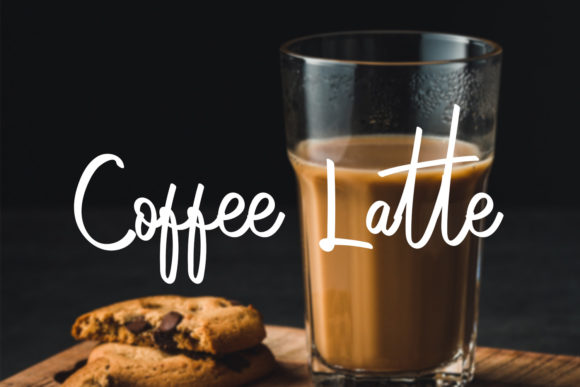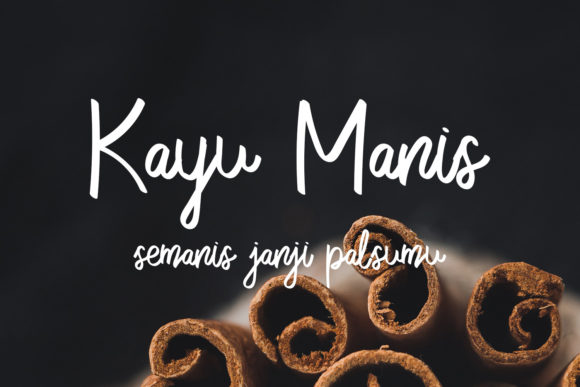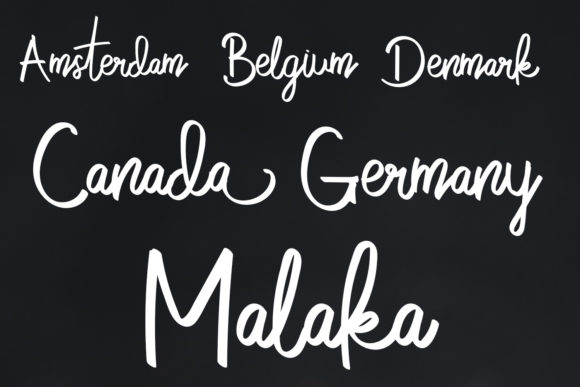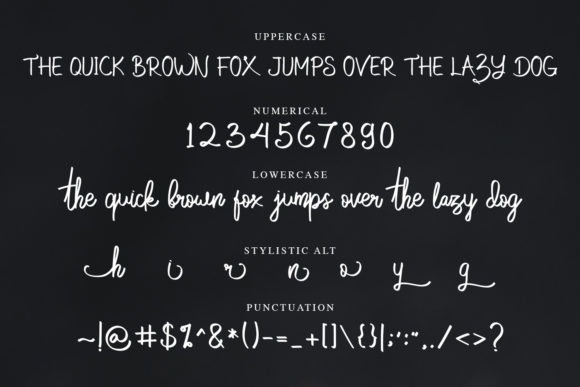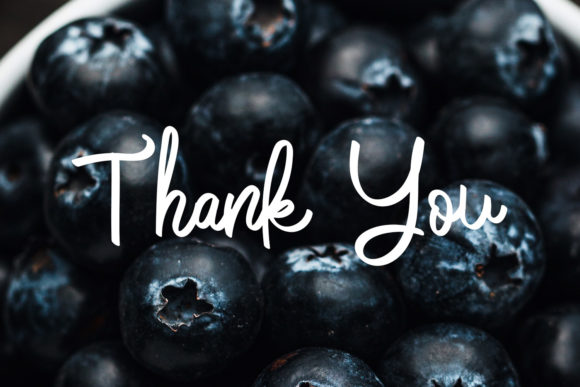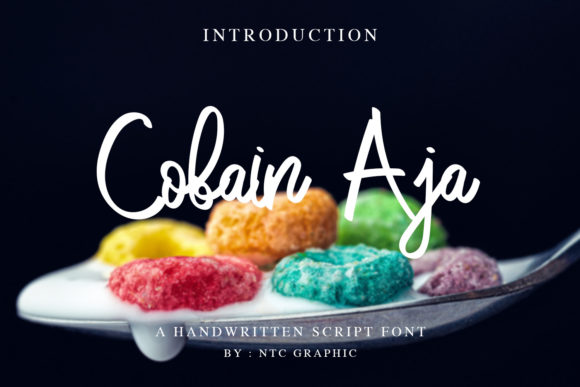
Cobain Aja Font: Unleashing Creativity with a Playful Twist
Cobain Aja is a dynamic and playful script that’s full of energy. Get inspired by its authentic charm. This stunning font is perfect for designers and crafters looking to add a touch of personality to their projects. In this article, we’ll dive into the world of Cobain Aja, exploring its features, benefits, and uses.
The Story Behind Cobain Aja
Cobain Aja is a script font that exudes a sense of playfulness and spontaneity. Its unique design is inspired by the carefree spirit of the 90s, making it perfect for projects that require a dash of nostalgia and whimsy. The font’s creator aimed to craft a typeface that would capture the essence of a handwritten script, while maintaining readability and versatility.
Key Features of Cobain Aja
- Dynamic and Playful: Cobain Aja is a script font that’s full of energy and movement. Its dynamic strokes and playful connections make it perfect for headlines, titles, and quotes.
- Authentic Charm: The font’s authentic charm lies in its imperfections, making it look like a handwritten script. This unique character adds a touch of personality to any project.
- Highly Readable: Despite its playful nature, Cobain Aja remains highly readable, even at smaller font sizes. This makes it suitable for body text, captions, and other applications where legibility is crucial.
- Versatile: Cobain Aja is a versatile font that can be used in a wide range of projects, from branding and advertising to packaging and digital media.
Cobain Aja offers numerous benefits for designers and crafters, including:
- Unique Design: Cobain Aja’s unique design sets it apart from other script fonts, making it perfect for designers looking to create distinctive and memorable projects.
- Time-Saving: With Cobain Aja, designers can save time and effort, as the font’s playful nature eliminates the need for extensive illustration or customization.
Uses for Cobain Aja
Cobain Aja is an incredibly versatile font that can be used in a wide range of projects, including:
- Branding and Logo Design: Cobain Aja’s playful and dynamic nature makes it perfect for branding and logo design, adding a touch of personality to any business or product.
- Digital Media: The font’s high readability and versatility make it suitable for digital media, including social media graphics, blog posts, and website headers.
- Packaging and Label Design: Cobain Aja’s unique design and authentic charm make it perfect for packaging and label design, adding a touch of whimsy to any product.
- Crafting and DIY Projects: Crafters and DIY enthusiasts can use Cobain Aja to add a personal touch to their projects, including handmade cards, scrapbooking, and journaling.
Cobain Aja is a dynamic and playful script font that’s full of energy and authentic charm. Its unique design, versatility, and readability make it perfect for designers and crafters looking to add a touch of personality to their projects. Whether you’re working on branding, digital media, packaging, or crafting, Cobain Aja is sure to inspire creativity and bring a dash of whimsy to your work.
Get Inspired with Cobain Aja